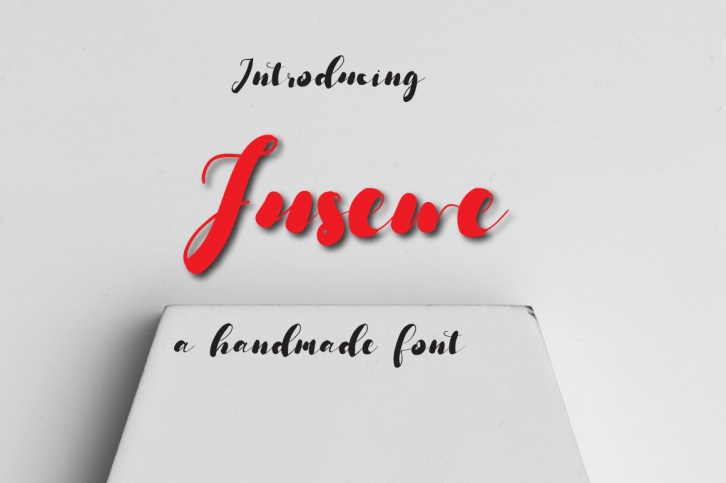
Fusewe Typeface is a beautiful font that was designed by Design 2 Last. It's a great choice for designers and creatives who need such a font. It was released on September 4, 2018 and the file size is 4.19 MB. Fusewe Typeface may give a more youthful, expressive and casual look to your project. It is a very beautiful, refined, elegant, and high-quality font.